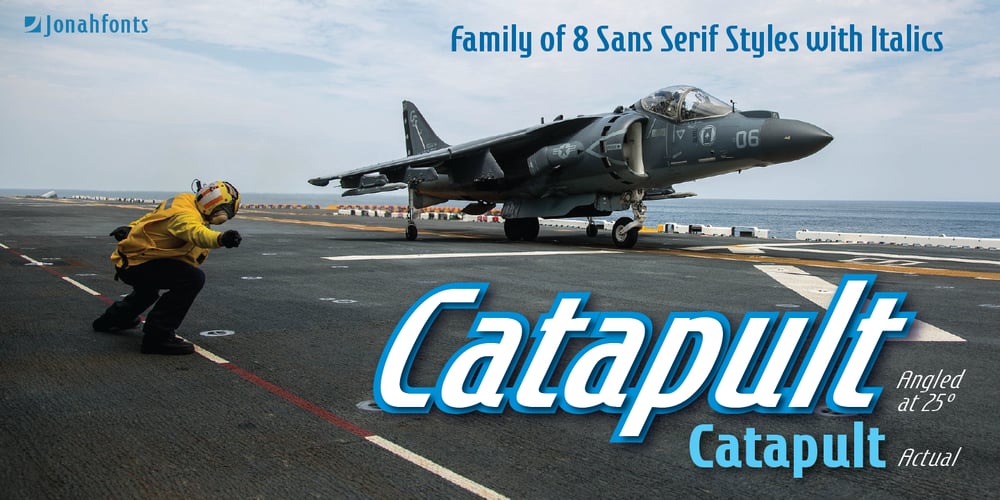
Catapult Font Family was designed by John Nahmias and published by Jonahfonts. Catapult contains 8 styles and family package options. Catapult is designed based on my popular condensed versions of Cornerstone / 8 styles, Cornerstone Pro / 10 styles and Cornerstone Flair / 8 styles. Catapult / 8 styles is wider with much detail to kerning and keeping the overall color in paragraphs at a minimum. Catapult also contains extra glyphs and new alternates. https://www.myfonts.com/search/cornerstone/Applications include Headlines, logos, ads, invitations, captions, packaging, bulletins, posters, and greeting cards as well as short texts.